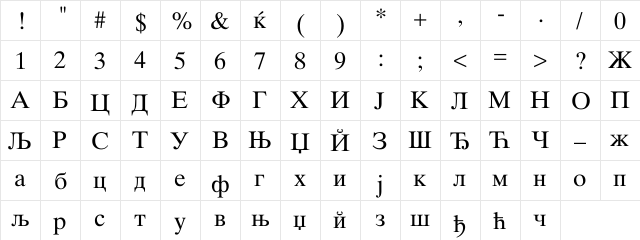
CYDutchR Regular
Design Context for CYDutchR Typeface
CYDutchR offers clean, dependable letterforms without strong stylistic allegiance, making it a practical choice for designers who need flexibility.